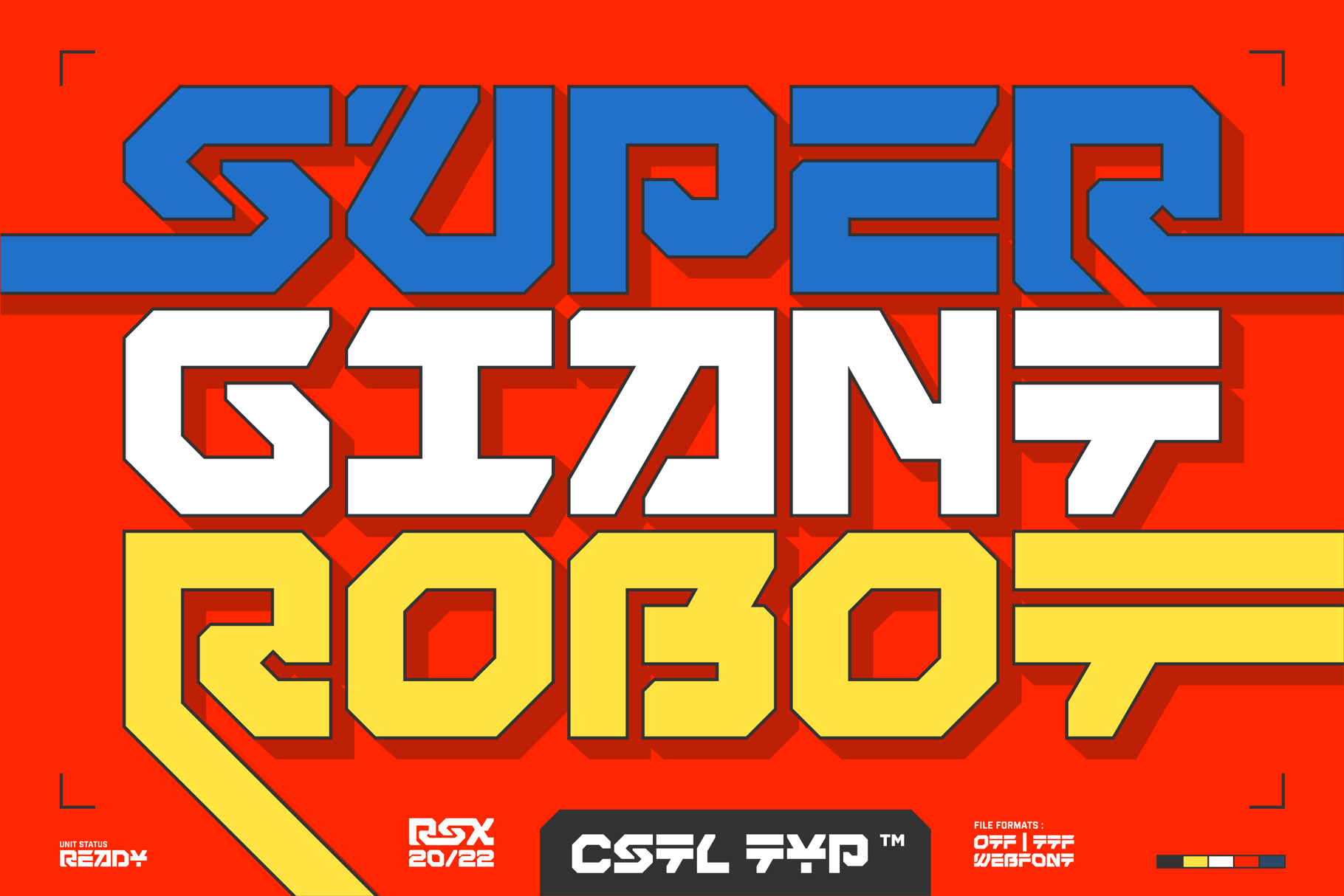
Inspired by Japanese robot animations in 80s such like Gundam, Godaikin, Voltus 5, Super Giant Robot is a square geometric sans serif. However, it can be used in many creative ways. For example, it is perfectly suited for graphic design applications ranging from editorial, poster, corporate, web, interaction, and product design.
The font contains 250+ glyphs which includes uppercase letters, numbers, symbols, accented characters, and multiple language support. Check it out.